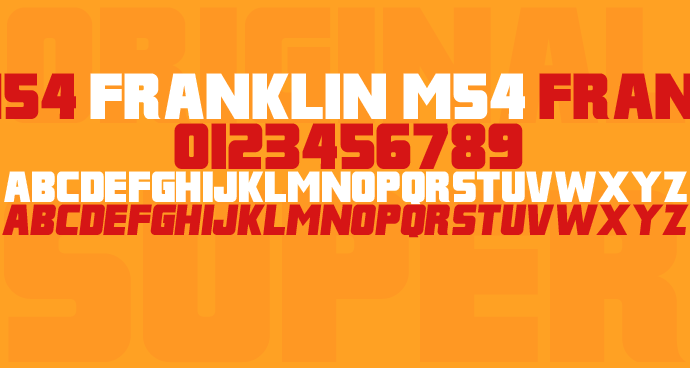
A bold, black typeface with a slightly retro feel to it. Good for headlining and signage, best in bigger point sizes. If you find this font useful then please consider a donation to justme54s[at]yahoo.co.uk, any amount will be greatly appreciated. A donation isn't necessary to use this font for personal or non-commercial use. I'll be interested to know how people use it so a picture or artwork sent to justme54s[at]yahoo.co.uk would be nice. If you wish to use this font commercially a donation or license is required, please email for further information. Alternatively, for one time commercial use just send details of usage along with your donation so that a return email can be sent as proof of rights to commercial usage. Usage Agreement You may not host this font anywhere online as it is hosted exclusively at FontSpace.com and Dafont.com. Any links for downloads should be directed to FontSpace or Dafont. You may share the font electronically but the Zip file should remain intact with the font alongside all other files as packaged. You may not sell this font, but are allowed to distribute it freely i.e. in magazines. |